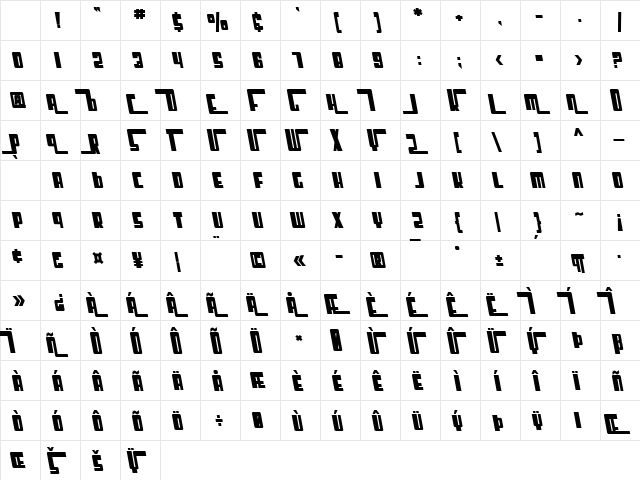
Complete SF Cosmic Age Bold Oblique glyph index. Displaying only characters natively supported by SF Cosmic Age Bold Oblique font.
SF Cosmic Age is a composed and adaptable typeface that performs quietly and consistently across a wide range of design contexts. The slanted form adds forward momentum and visual energy. Its bold stroke weight gives it real presence on the page.
Pro Tip: Use SF Cosmic Age for emphasis, pull quotes, and subheadings where its slanted energy can add rhythm to the layout.